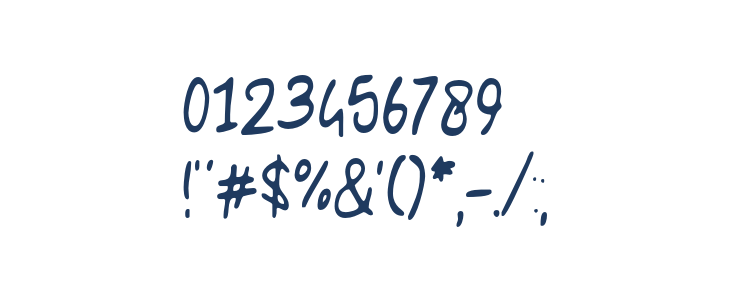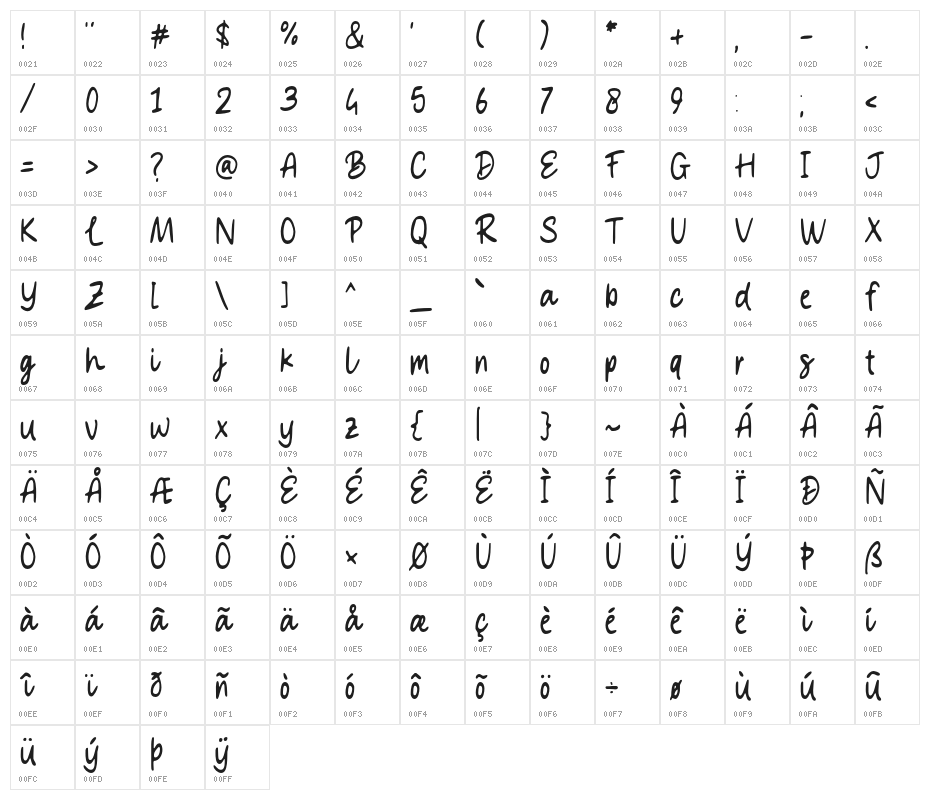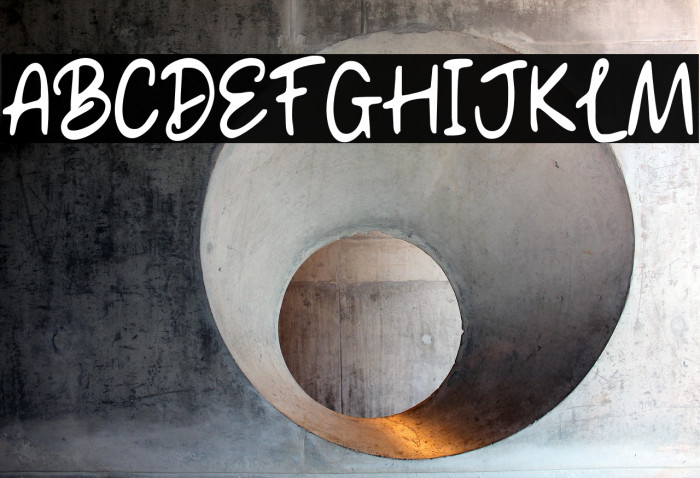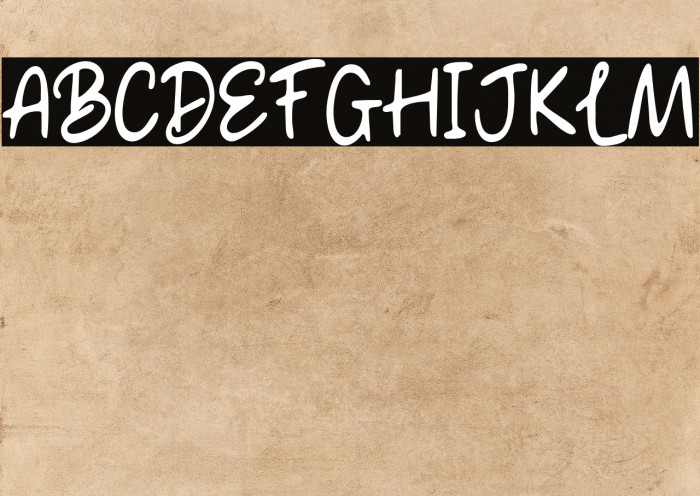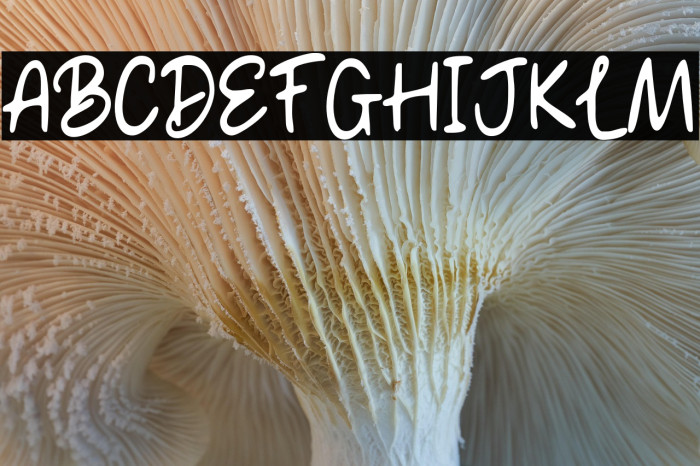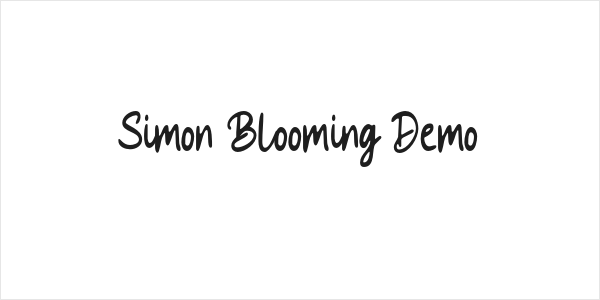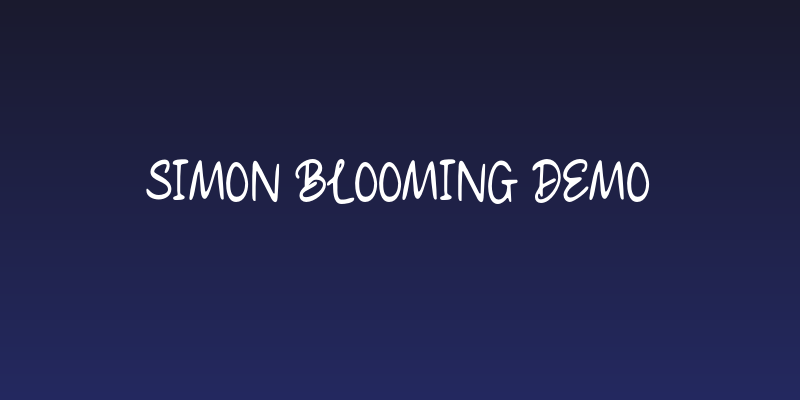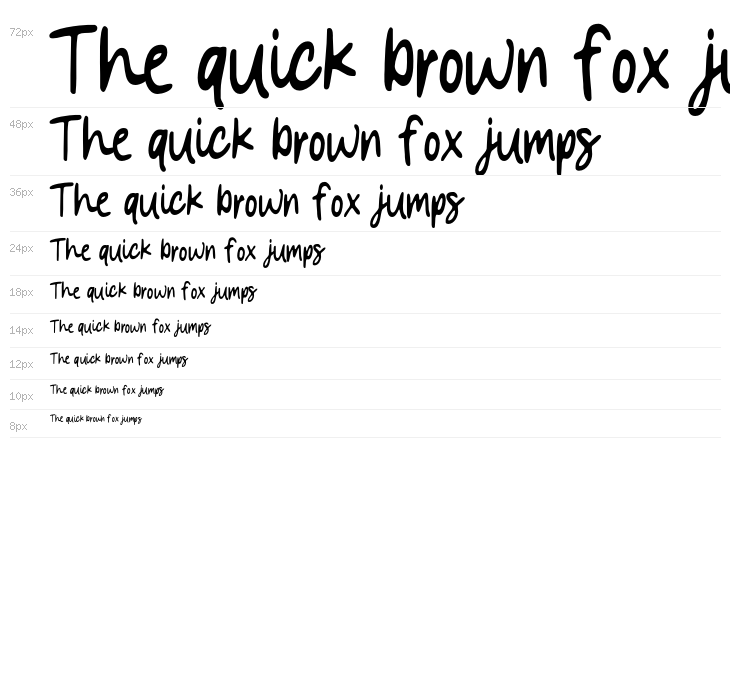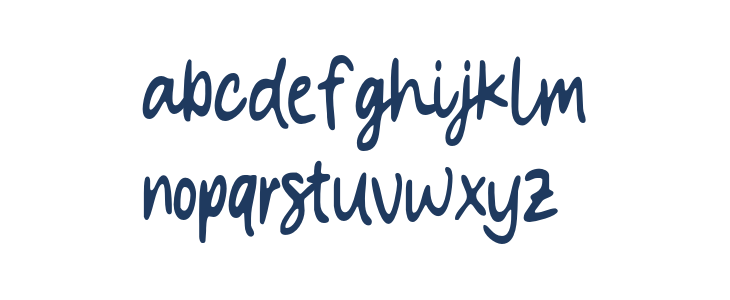
Simon Blooming Demo Font
Simon Blooming Demo Description
This font features a playful and energetic handwritten style, characterized by its bold and expressive strokes. The letters are slightly slanted, giving a casual and informal appearance. The uppercase and lowercase letters maintain a consistent flow, while the numbers and special characters complement the overall design with their rounded and dynamic shapes. The font's lively nature makes it suitable for projects that require a personal touch or a sense of spontaneity.
| Overall Style | Playful, Casual |
| Use Case | Logos, Headlines, Informal Text |
| Proposed Projects | Ideal for greeting cards, invitations, children's books, and playful branding. |